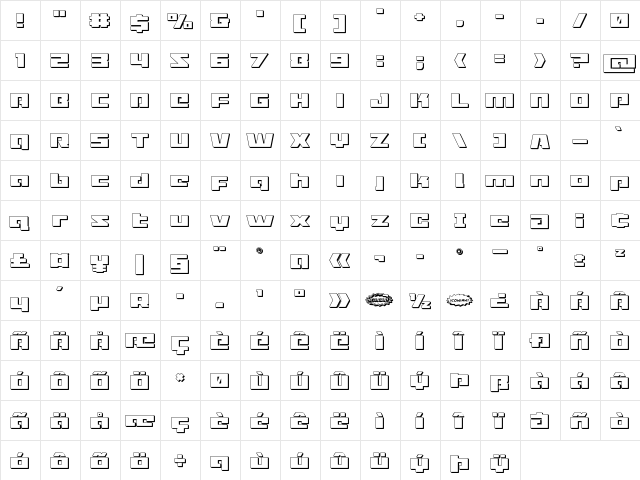
Turbo Charge 3D Regular
Design Context for Turbo Charge 3D Typeface
Turbo Charge 3D is a composed and adaptable typeface that performs quietly and consistently across a wide range of design contexts.